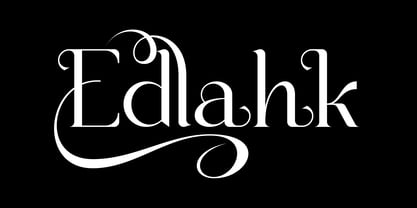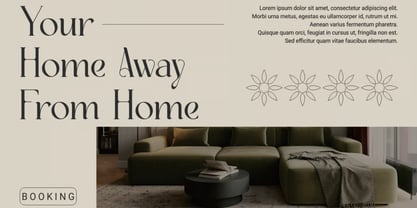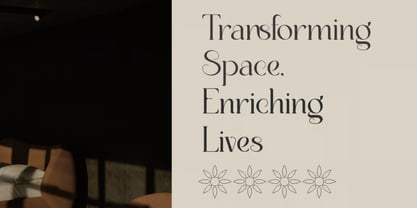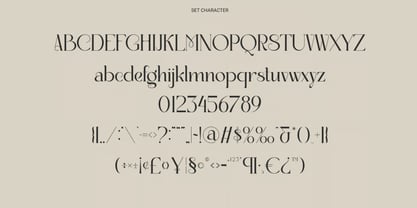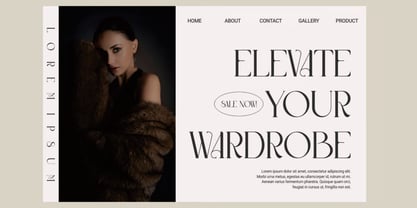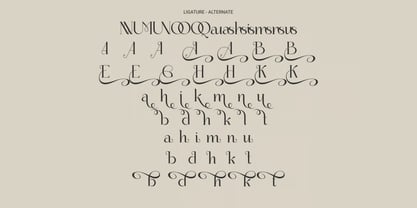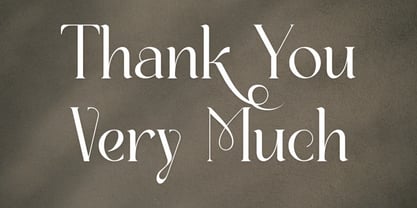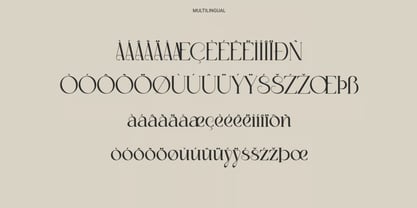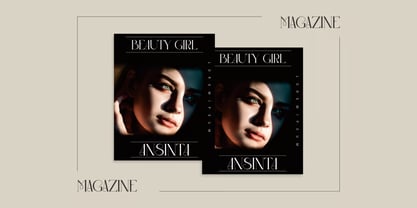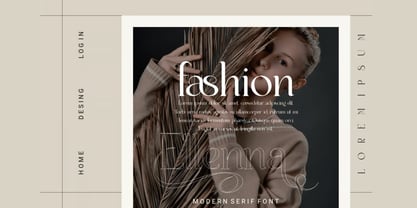
Edlahk
by Hasnat Studio
The Edlahk Font Family was designed by Hasnat Khan and published by Hasnat Studio. Edlahk contains 1 styles. More about this family
Edlahk is a bold and modern condensed typeface designed to make a strong statement in every design. Featuring powerful letterforms, sharp cut details, and a space-efficient structure, Edlahk delivers an impactful visual presence that instantly grabs attention. Its bold, blocky characters are crafted to communicate confidence, strength, and modern sophistication, making it the perfect choice for projects that demand visibility and authority.
With its condensed proportions and distinctive styling, Edlahk is ideal for headlines, logos, posters, advertising campaigns, fashion branding, packaging, editorial design, sports graphics, social media content, and creative marketing materials. Whether used in large display settings or bold branding applications, this typeface ensures your message stands out with clarity and style.
Designed for modern creatives, Edlahk combines versatility with a commanding aesthetic, allowing you to create memorable designs that leave a lasting impression.
✿ Key Features:
• Bold Condensed Typeface: Strong, impactful letterforms optimized for modern display use.
• Unique Cut Details: Distinctive design elements that add character and visual interest.
• Uppercase & Lowercase Letters: Complete character set for versatile typography.
• Numerals & Punctuation: Essential symbols for professional and creative projects.
• Stylish Ligatures: Seamless character combinations for polished typography.
• High Readability: Designed to maintain clarity while maximizing visual impact.
• Modern Display Aesthetic: Perfect for contemporary branding and promotional designs.
✿ Perfect For:
• Logo & Branding Design: Create bold and memorable brand identities.
• Advertising & Marketing: Capture attention with powerful display typography.
• Posters & Headlines: Ideal for high-impact titles and promotional graphics.
• Fashion & Streetwear Branding: Add confidence and modern style to apparel projects.
• Editorial & Magazine Design: Create striking layouts and impactful headlines.
• Sports & Entertainment Graphics: Perfect for energetic and dynamic visual content.
• Social Media & Digital Campaigns: Stand out in crowded online environments.
Elevate your creative projects with Edlahk—a bold modern condensed typeface crafted for impactful branding, powerful headlines, standout logos, posters, advertising campaigns, and contemporary visual design. Make every word count with typography that leaves a lasting impression.
Designers: Hasnat Khan
Foundry: Hasnat Studio